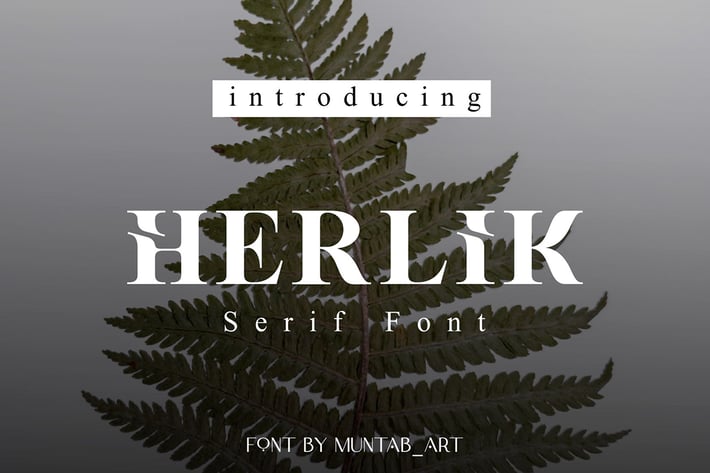
Herlik | Modern Serif Font
Herlik fonts includes uppercase letters, numerals, a large range of punctuation. Serif font with modern style. Created for poster, web design, branding, illustrations, badges and some other works.